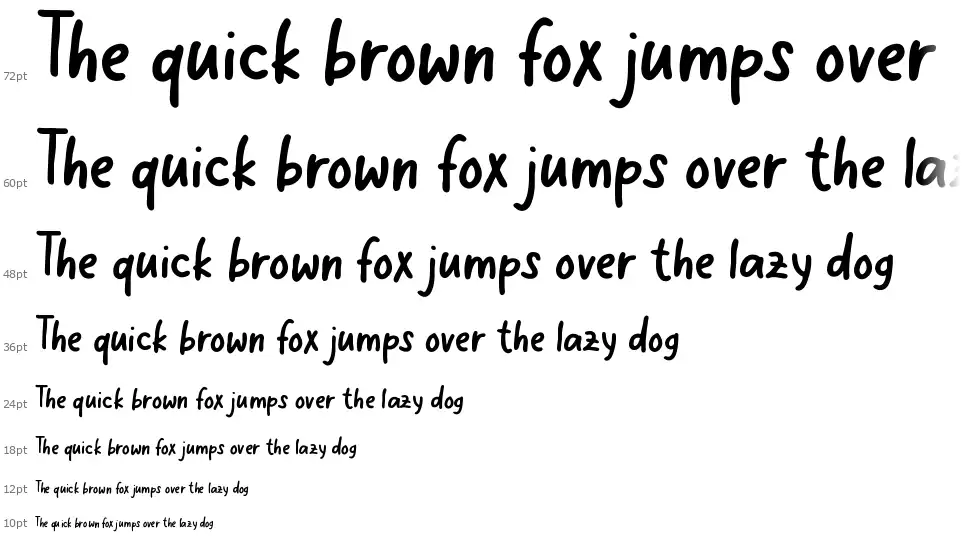
Travel Diary Font . Travel diary is a free font for personal use created by siddharth dasari. 21,112 downloads (4 yesterday) free for personal use. 112,747 downloads (3 yesterday) donationware. Travel diary is a handwritten display typeface with its bold graphic presence making it ideal for usage in informal postcards, invitations, travel and lifestyle magazines, wedding and. Travel diary by siddharth dasari. Get your very own free download of the travel diary font, designed and created by siddharth dasari. You can download the travel diary font to your. Travel diary font family designed by unknown designer has a total of 1 different styles. Thank you for downloading our font! Travel diary is a fancy type font that can be used on any device. Each one narrates its unique travel story. Moreover, you can embed it to your website. Whether you're crafting a travel blog post or designing a tourism brochure, the right font can set the perfect adventurous tone. Available in both ttf and otf typeface. Embark on a journey with these fonts;
Whether you're crafting a travel blog post or designing a tourism brochure, the right font can set the perfect adventurous tone. Travel diary is a handwritten display typeface with its bold graphic presence making it ideal for usage in informal postcards, invitations, travel and lifestyle magazines, wedding and. Moreover, you can embed it to your website. Each one narrates its unique travel story. Embark on a journey with these fonts; Available in both ttf and otf typeface. You can download the travel diary font to your. Get your very own free download of the travel diary font, designed and created by siddharth dasari. Travel diary is a free font for personal use created by siddharth dasari. 21,112 downloads (4 yesterday) free for personal use.
Travel Diary Font Travel diary is a handwritten display typeface with its bold graphic presence making it ideal for usage in informal postcards, invitations, travel and lifestyle magazines, wedding and. Thank you for downloading our font! 21,112 downloads (4 yesterday) free for personal use. Travel diary font family designed by unknown designer has a total of 1 different styles. Moreover, you can embed it to your website. Each one narrates its unique travel story. You can download the travel diary font to your. Available in both ttf and otf typeface. Travel diary by siddharth dasari. Whether you're crafting a travel blog post or designing a tourism brochure, the right font can set the perfect adventurous tone. Travel diary is a free font for personal use created by siddharth dasari. Get your very own free download of the travel diary font, designed and created by siddharth dasari. Travel diary is a handwritten display typeface with its bold graphic presence making it ideal for usage in informal postcards, invitations, travel and lifestyle magazines, wedding and. Travel diary is a fancy type font that can be used on any device. Embark on a journey with these fonts; 112,747 downloads (3 yesterday) donationware.